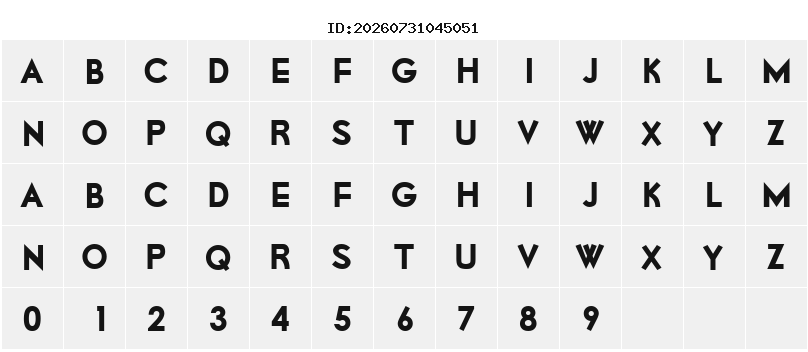
• Font Name: Lionel Classic
About Lionel Classic.ttf
Lionel Classic.ttf is a modern, elegant sans-serif font designed for ultimate readability and visual harmony. Perfect for branding, headlines, web design, and print materials.